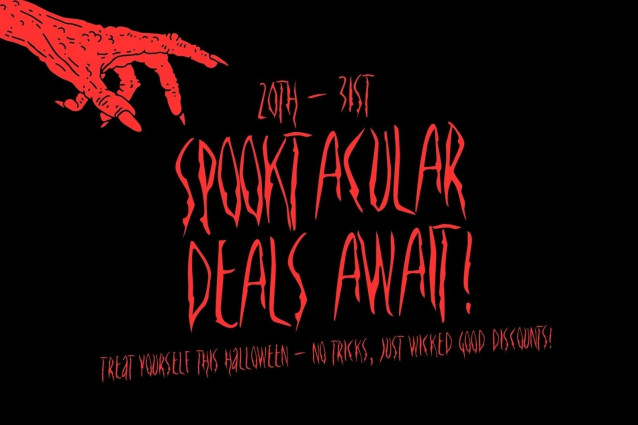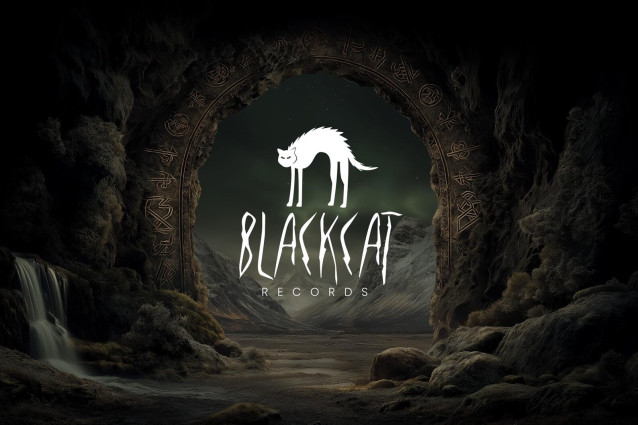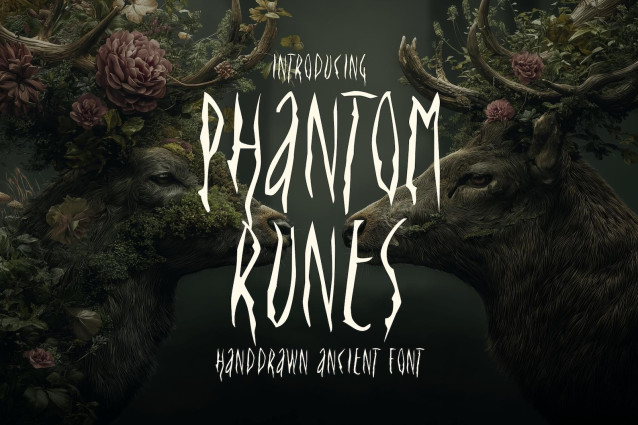
Phantom Runes Font
Phantom Runes Font is an eerie, scratch-like horror display font designed to send chills down the spine. Its jagged, distressed letterforms feel hand-carved, corrupted, and unstable — as if scratched into stone, wood, or bone by unseen forces.
Perfect for horror posters, Halloween designs, dark artwork, album covers, game titles, book covers, and creepy branding, Phantom Runes delivers a raw and unsettling presence. Each letter carries an organic, imperfect texture that enhances fear, tension, and atmosphere.
This font thrives in dark, moody compositions where chaos and unease are essential. Whether you’re creating occult visuals, haunted typography, or nightmare-fueled designs, Phantom Runes gives your message a cursed, otherworldly voice.